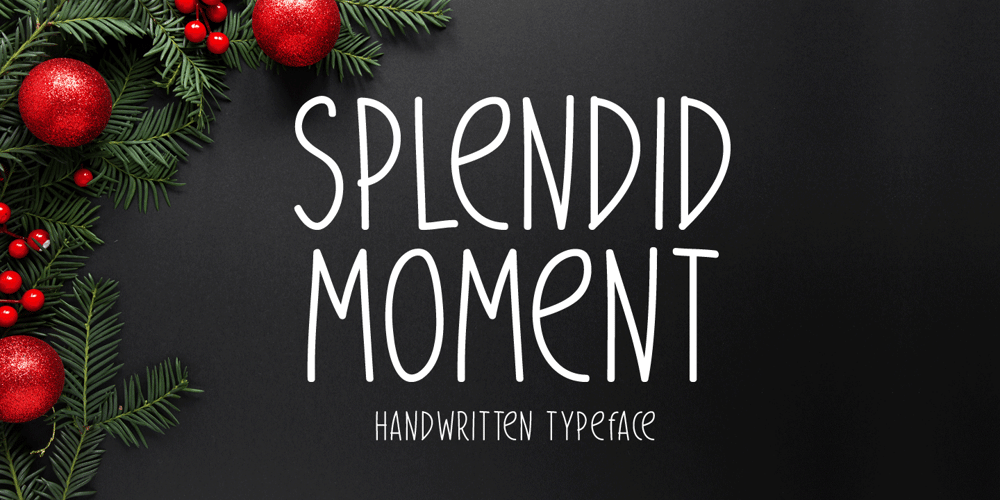
Splendid Moment Font Family was designed by Md Shohail Bhuian and published by Seemly Fonts. Splendid Moment contains 1 styles and family package options. Splendid Moment is a cute and simple lettered handwritten font that can be used for all chalkboard quotes or teaching material! Its authentic look will add a personal and realistic feel to your designs.